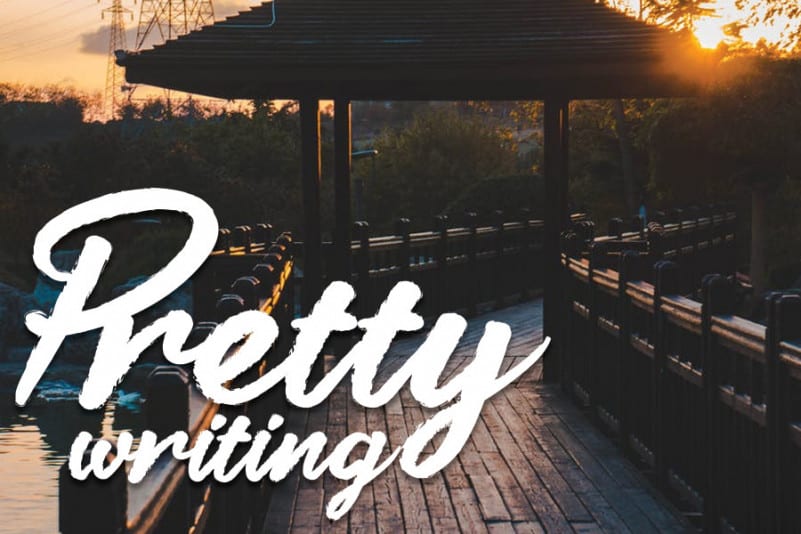
Brush womens Script Font
Brush womens Script Font is a casual, fun display font, created by using a brush pen. Clean and a little bit quirky, this font is the perfect fit for all of your logos, branding, social media, and crafty DIY projects.
The latest style letters are perfect for wall displays, wedding invitations, social media post logos, advertisements, product packaging, product designs, labels, photography, watermarks, invitations, stationery, and any project that requires taste handwriting.